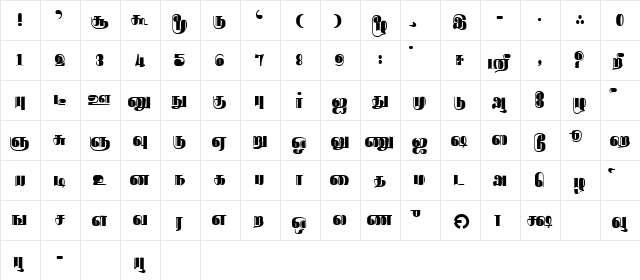
Rathnangi Regular
Design Context for Rathnangi Typeface
Rathnangi is a composed and adaptable typeface that performs quietly and consistently across a wide range of design contexts.